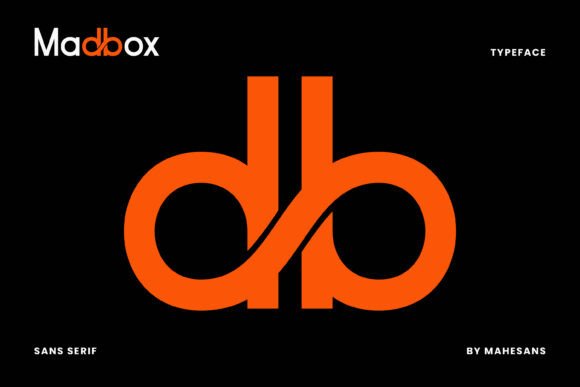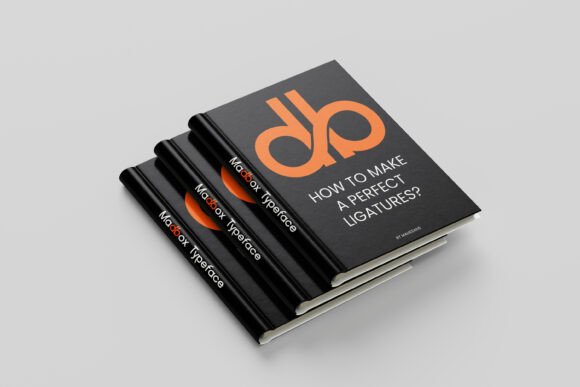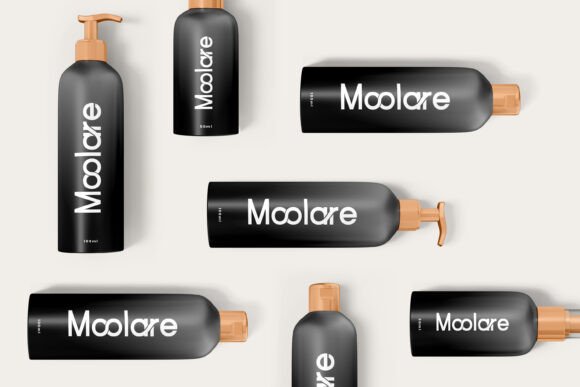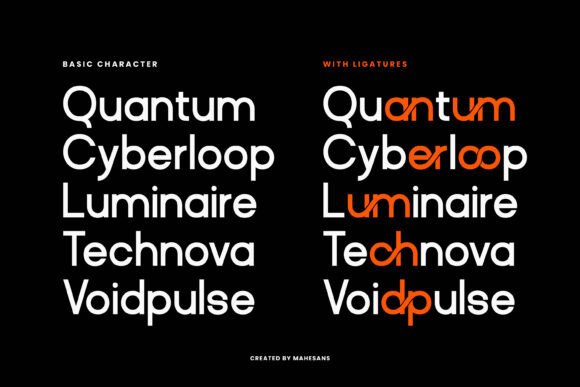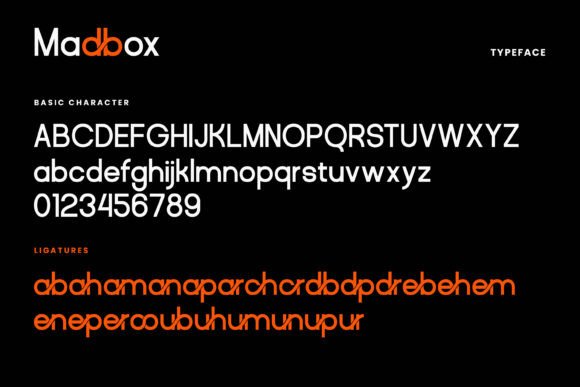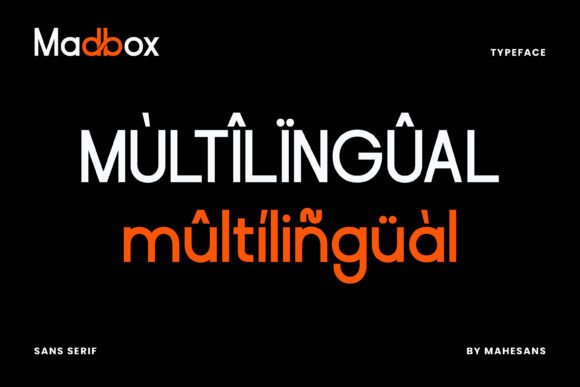
Introduction to Madbox Font
Madbox – Modern Ligature Sans Serif Madbox is a sleek and contemporary sans serif typeface that blends geometric precision with artistic expression.
Defined by its bold character and dynamic ligatures, Madbox stands out through the use of experimental forms—most notably its unique “db” ligature, which becomes the visual centerpiece of its identity The font offers both simplicity and creativity, making it ideal for branding, headlines, posters, and futuristic interfaces.